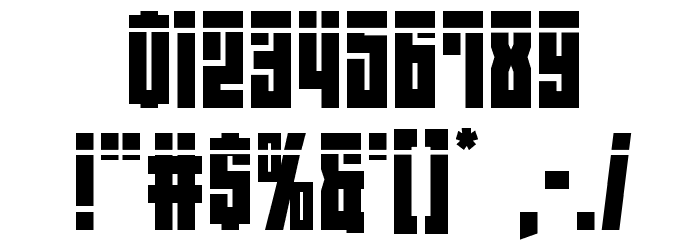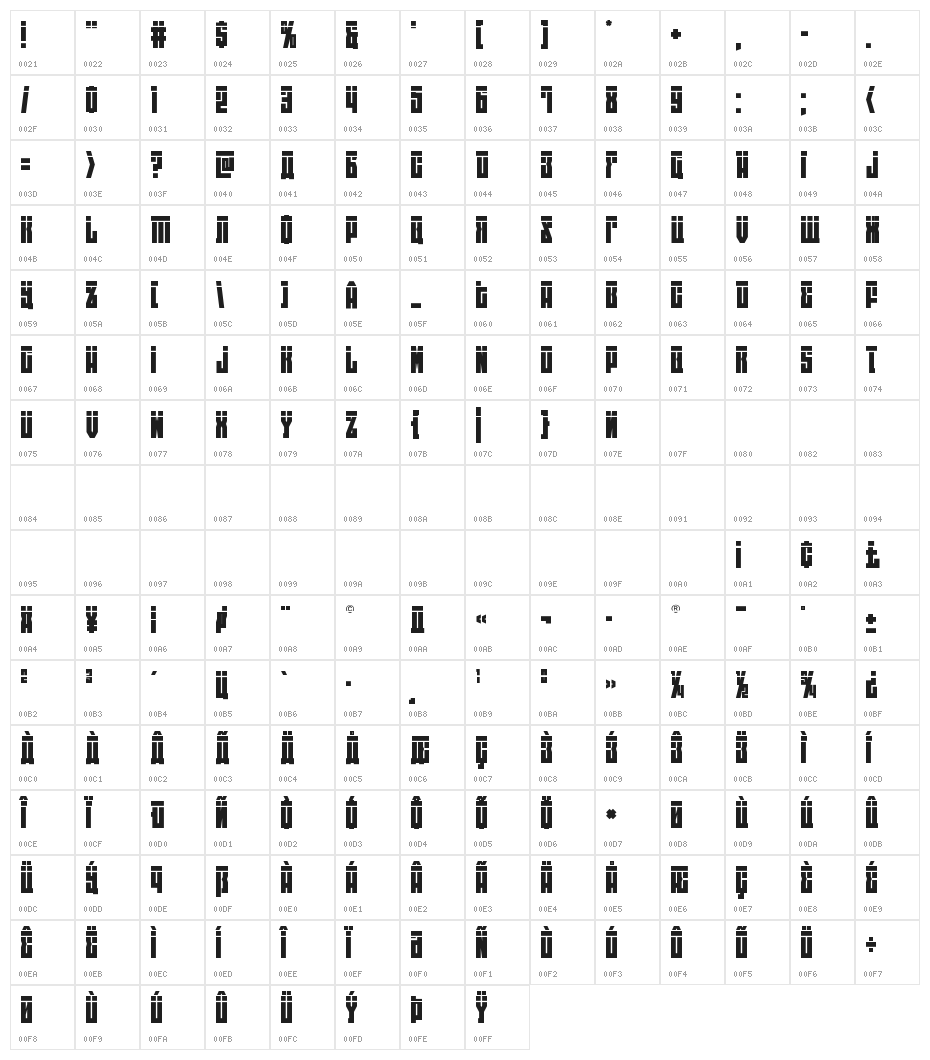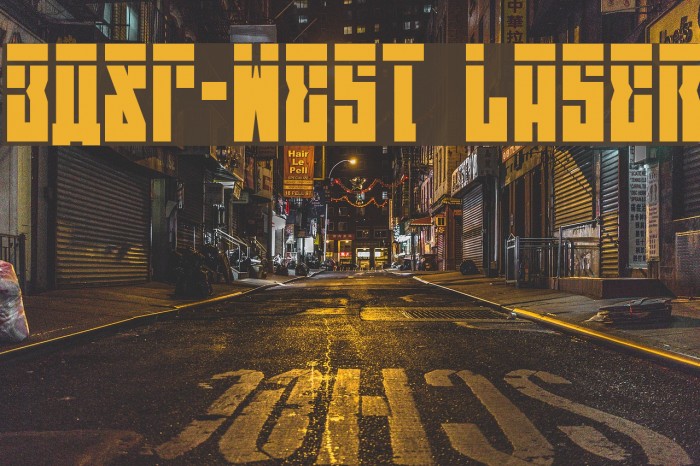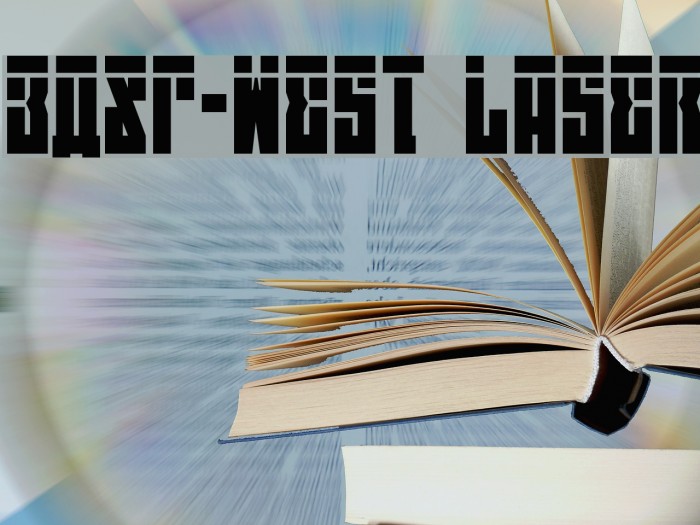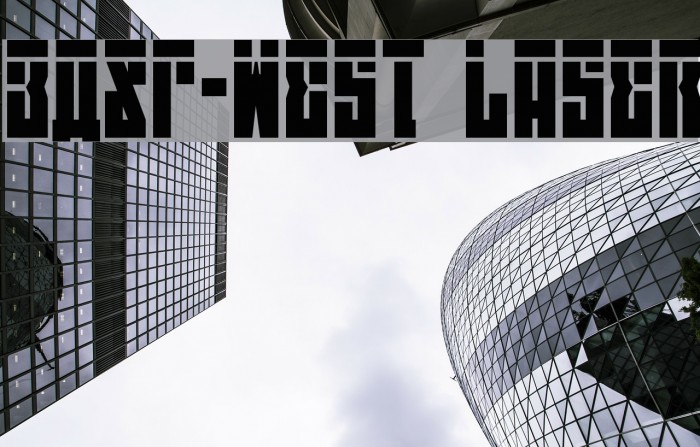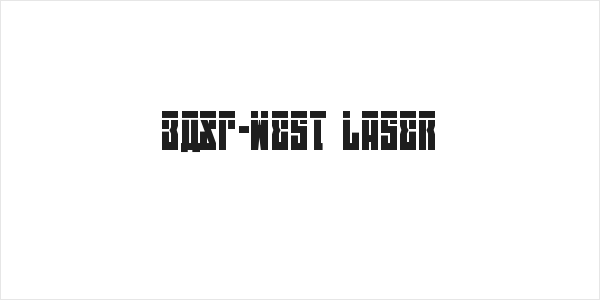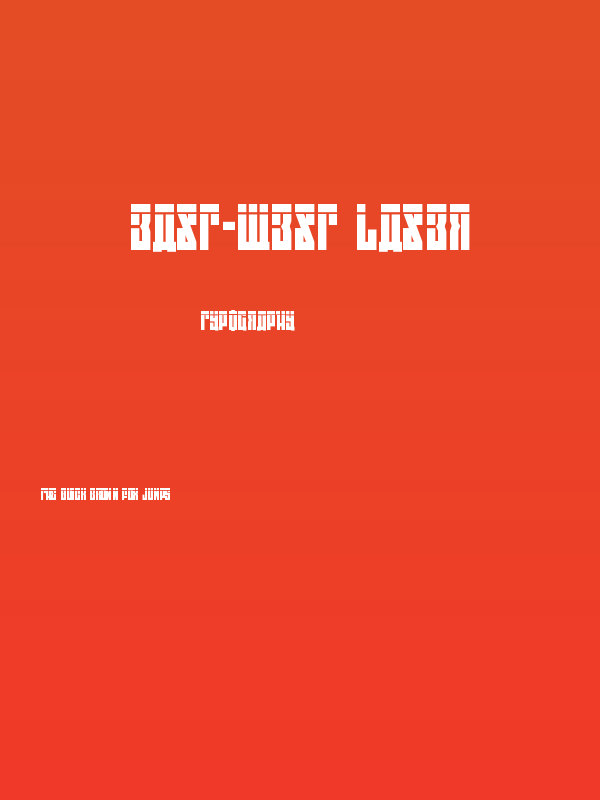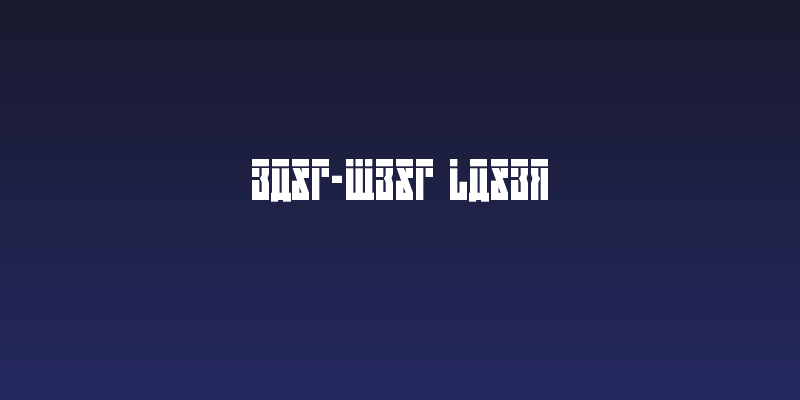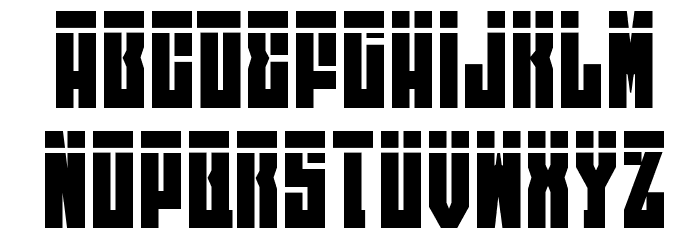
EAST-west Laser Font
EAST-west Laser Description
This font features a bold and geometric design with strong, angular lines and a blocky appearance. The uppercase and lowercase letters maintain a consistent height, giving the typeface a uniform look. The characters are tightly spaced, enhancing the compact and solid feel of the font. The numerals and special characters follow the same design principles, ensuring a cohesive visual style across all elements. This typeface is highly legible and impactful, making it suitable for attention-grabbing designs.